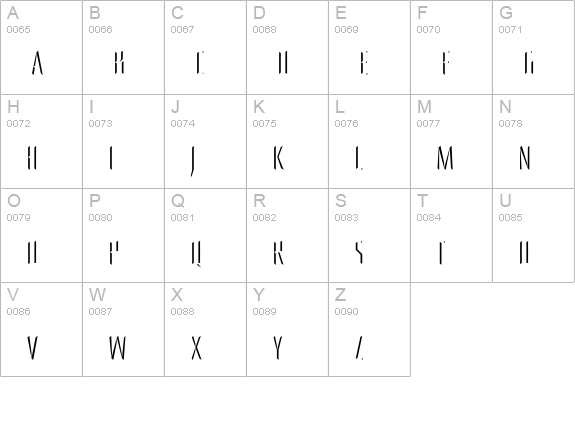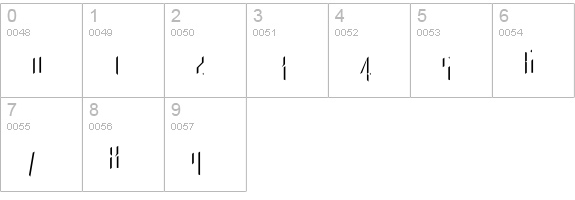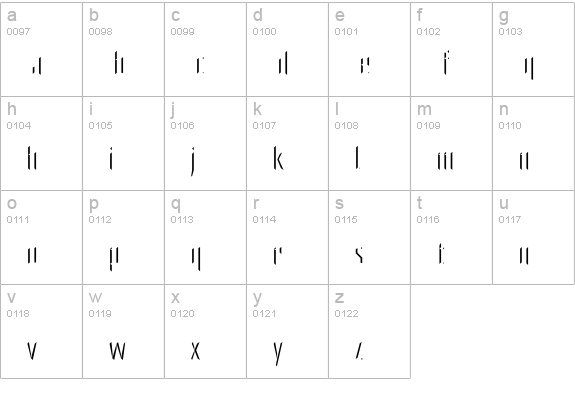
PrimaryStone-Right Font Details
PrimaryStone-Right font is a modern and sleek typeface that exudes sophistication and elegance. With its clean lines and sharp angles, this font is perfect for creating a bold and professional look in your designs. The PrimaryStone-Right font is available for free download at FontsMarket.com, making it easily accessible for all designers and creatives looking to add a touch of style to their projects. Whether you're designing a logo, website, or print materials, PrimaryStone-Right font is sure to make a statement and elevate your work to the next level. Unlock the potential of your designs with this versatile and eye-catching font, now available for free at FontsMarket.com.